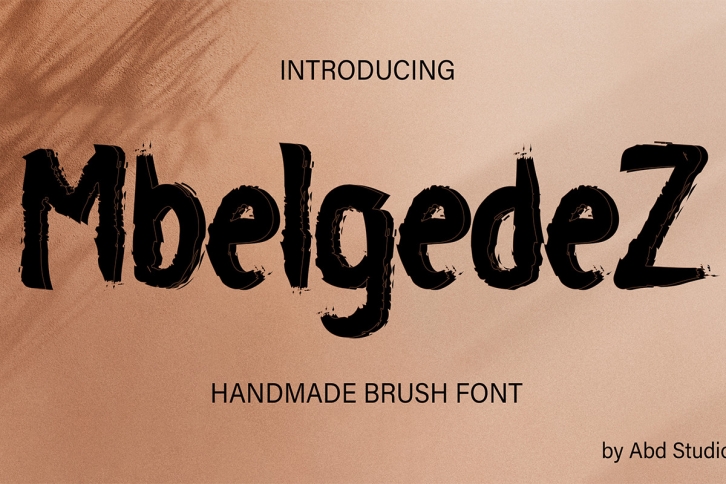
MbelgedeZ is a natural and authentic font that’s great for delivering any message with confidence and style. Get inspired by its unique charm and create lovely designs.